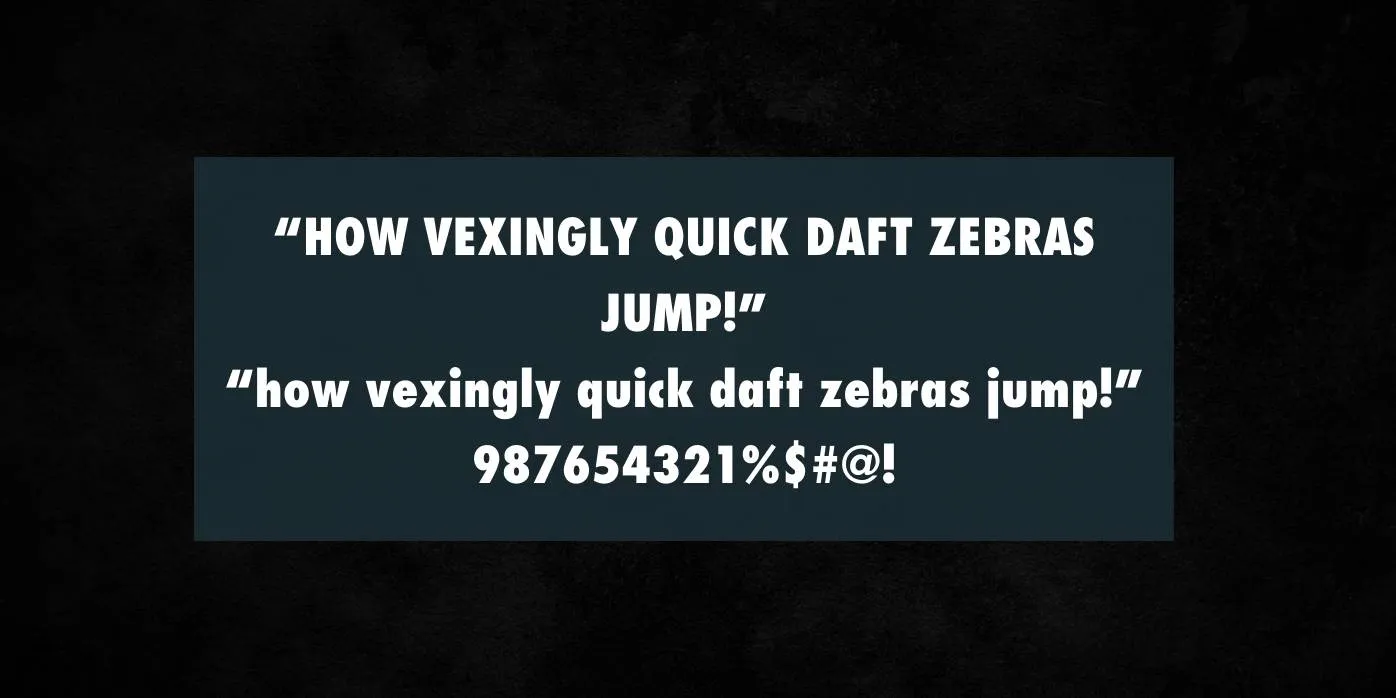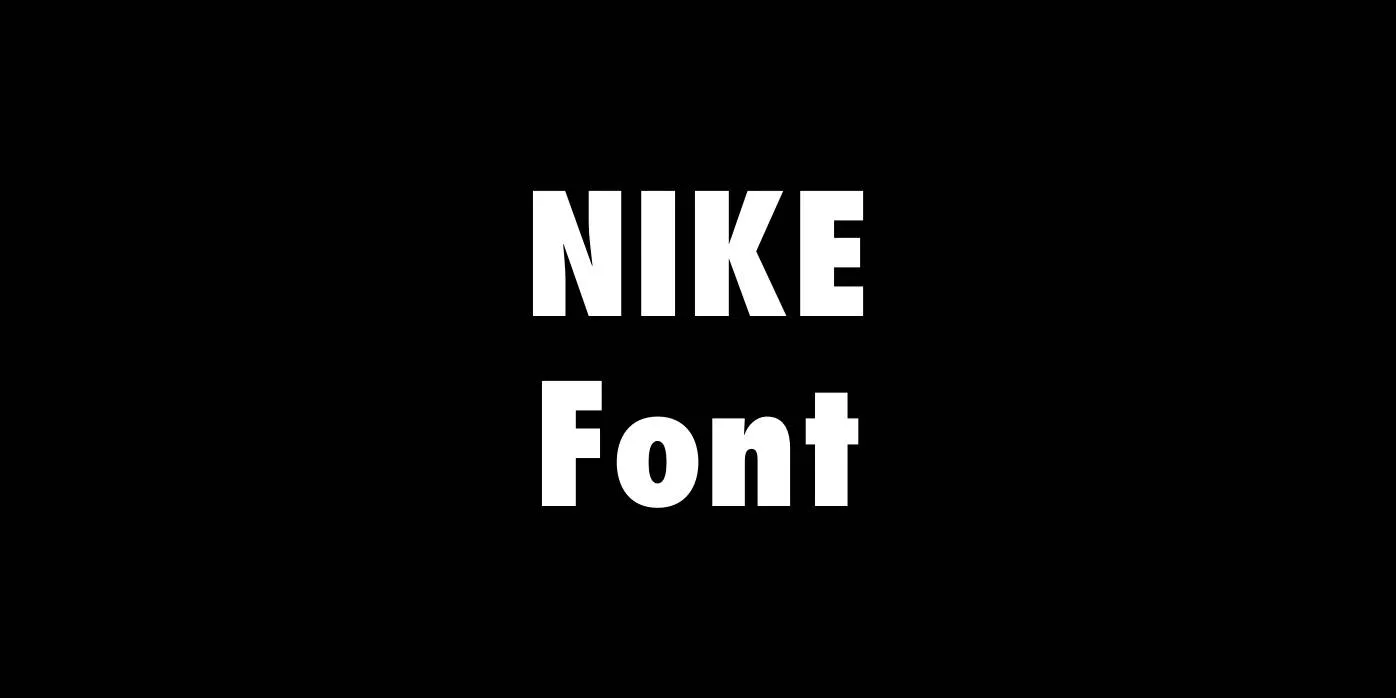
Nike Font
Here we are going to present a very classic typeface known as Nike Font. This family was developed by Paul Renner. It is a sans serif typeface that is best for many designs. This font is widely used by many designers and you will see it in various places.
It is mostly used for Photoshop. This font was released in the year 2004. It supports Latin, Cyrillic, and Greek languages. You can use this font for various purposes like headlines, logos, posters, etc.